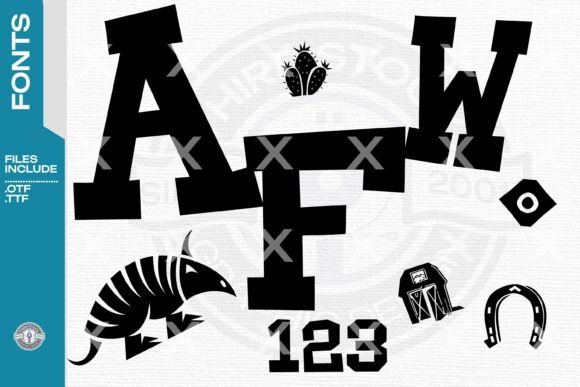
Unleash the Wild West with Chaotic Cowboy Font
Are you ready to add a touch of rugged rebellion to your designs? Look no further than the Chaotic Cowboy font, a bold and eye-catching display typeface that’s perfect for creating authentic Western-inspired branding, posters, and social media headers. In this article, we’ll dive into the unique features of Chaotic Cowboy and explore how it can elevate your design projects.
The Spirit of the Wild West
Chaotic Cowboy is more than just a font – it’s an attitude. Inspired by the rough-riding, rule-breaking spirit of the American frontier, this font embodies the essence of the Wild West. With its heavy, all-caps slab serif letterforms and intentional “chaotic” irregularities, Chaotic Cowboy mimics the look of vintage woodblock prints from the Old West. The result is a font that’s equal parts rugged, rebellious, and unforgettable.
Key Features of Chaotic Cowboy
- Heavy, all-caps slab serif letterforms: Perfect for creating bold, attention-grabbing headlines and titles.
- Intentional “chaotic” irregularities: Add a touch of ruggedness and character to your text.
- Thematic dingbats: A full set of Western-themed dingbats, including spurs, longhorns, barbed wire, and armadillos, to help you add visual interest to your designs.
Perfect for Western-Inspired Designs
Chaotic Cowboy is the perfect choice for designers and crafters looking to create authentic Western-inspired designs. Here are just a few ideas to get you started:
- Independent rodeo branding: Create bold, eye-catching logos and signage that capture the spirit of the Wild West.
- BBQ smokehouse identities: Add a touch of rugged charm to your restaurant or food truck branding.
- Country music festival posters: Create bold, attention-grabbing posters that showcase the energy and excitement of country music.
- Social media headers: Add a touch of rebellious flair to your social media profiles and headers.
Why Choose Chaotic Cowboy?
With so many fonts on the market, why choose Chaotic Cowboy? Here are just a few reasons why this font stands out:
- Unique and authentic: Chaotic Cowboy is a one-of-a-kind font that captures the essence of the Wild West.
- High-impact design: With its bold, all-caps letterforms and thematic dingbats, Chaotic Cowboy is perfect for creating high-impact designs that grab attention.
- Versatile: Whether you’re designing logos, posters, or social media headers, Chaotic Cowboy is a versatile font that can be used in a variety of contexts.
In conclusion, Chaotic Cowboy is a rugged and rebellious font that’s perfect for designers and crafters looking to create authentic Western-inspired designs. With its unique features, versatility, and high-impact design, Chaotic Cowboy is the premier choice for anyone looking to add a touch of the Wild West to their projects. So why wait? Saddle up and download Chaotic Cowboy today!